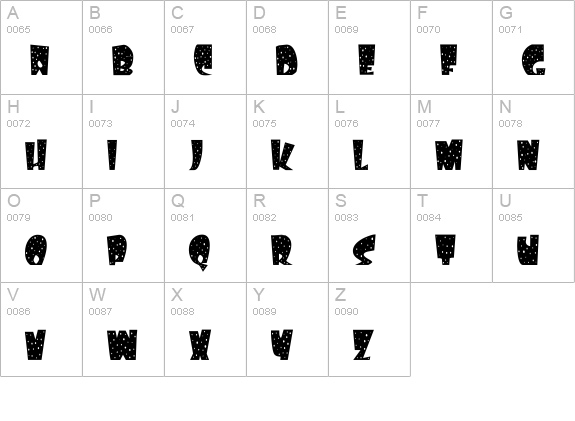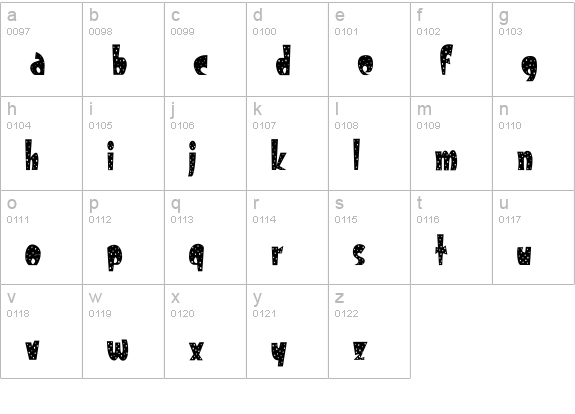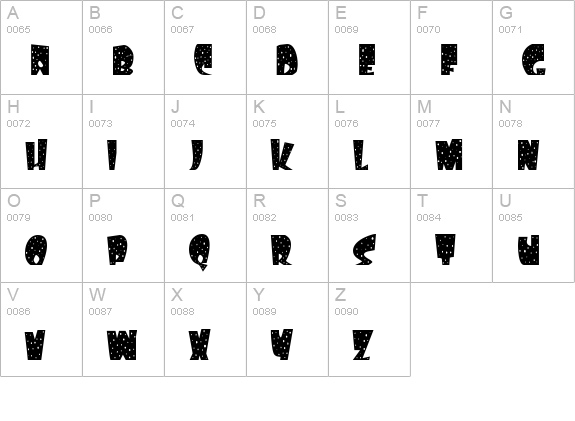
FreckleCondensed Font Details
FreckleCondensed font is a charming and unique typeface that is perfect for adding a touch of whimsy to your designs. This condensed version of the popular Freckle font features delicate freckles scattered throughout each letter, giving it a playful and organic feel. The clean lines and rounded edges make it easy to read, while the condensed spacing allows for efficient use of space in your layouts. Best of all, FreckleCondensed font is available for free download at FontsMarket.com. Whether you're working on a branding project, creating invitations, or designing a website, this versatile font is sure to add a touch of personality to your work. Download it today and let your creativity shine with FreckleCondensed font!